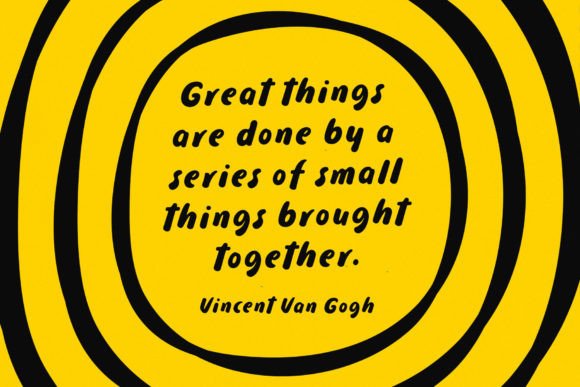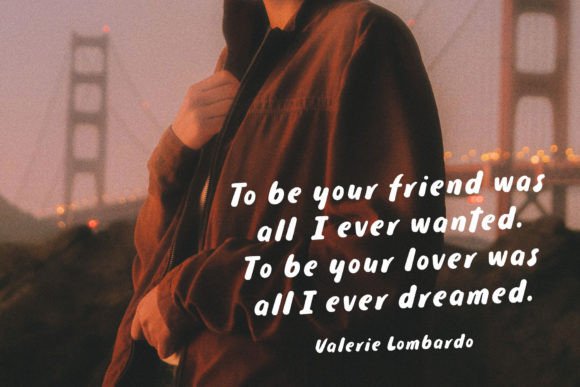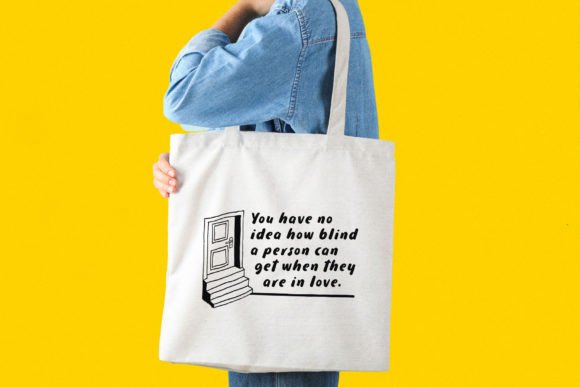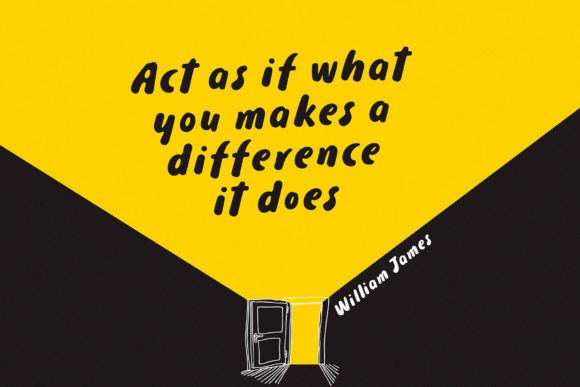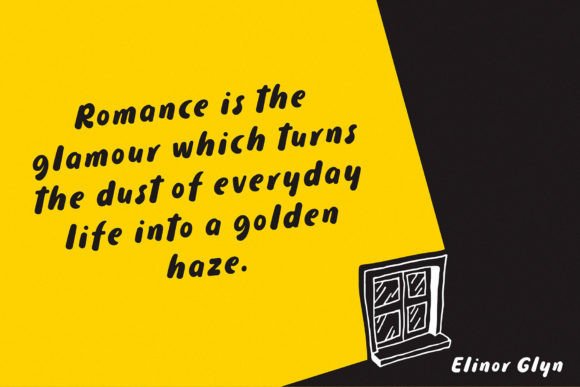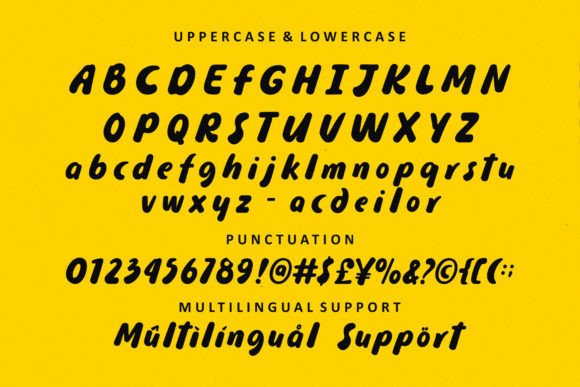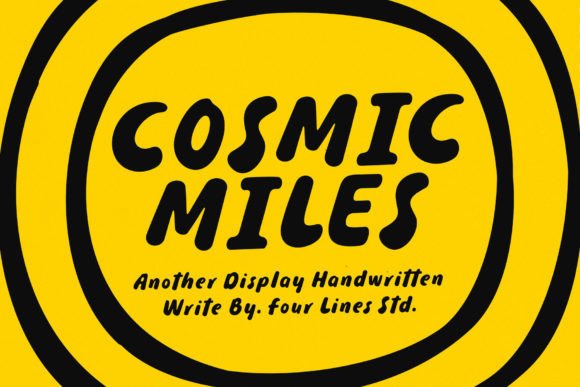
Cosmic Miles Font: Elevate Your Designs to New Celestial Heights
Are you a designer or crafter looking for a unique and captivating font to bring your favorite quotes to life? Look no further than Cosmic Miles, a stunning handwritten font that is out of this world. With its distinctive blend of thick and rounded strokes, Cosmic Miles encapsulates a sense of warmth and charm, adding a touch of cosmic magic to any project.
The Inspiration Behind Cosmic Miles
Cosmic Miles is more than just a font – it’s an experience. Inspired by the vastness of the universe and the beauty of handwritten script, this font is designed to transport your designs to new celestial heights. Whether you’re a seasoned designer or a crafty DIY enthusiast, Cosmic Miles is the perfect tool to add a touch of personality and whimsy to your work.
What Makes Cosmic Miles So Special?
So, what sets Cosmic Miles apart from other fonts? Here are just a few features that make it truly unique:
• Handwritten with love: Cosmic Miles is a handwritten font, carefully crafted to capture the imperfections and charm of human writing.
• Unique blend of thick and rounded strokes: The font’s distinctive strokes give it a warm and inviting feel, perfect for adding a touch of personality to your designs.
• Cosmic magic: With its celestial inspiration, Cosmic Miles is the perfect font for anyone looking to add a touch of magic to their designs.
Cosmic Miles is the perfect font for designers and crafters who want to add a touch of personality to their work. Whether you’re creating:
• Social media graphics: Add a touch of cosmic magic to your social media posts and stories.
• Planners and journals: Create beautiful and functional planners and journals that inspire and delight.
• Digital art: Use Cosmic Miles to add a touch of whimsy and personality to your digital art.
• Craft projects: Perfect for crafters who want to add a personal touch to their projects, from scrapbooking to card-making.
Here are a few tips for getting the most out of Cosmic Miles:
• Experiment with different colors: Try pairing Cosmic Miles with different colors to create a unique and eye-catching design.
• Play with font sizes: Experiment with different font sizes to create visual interest and hierarchy.
• Add a personal touch: Use Cosmic Miles to add a personal touch to your designs, whether it’s a quote, a message, or a simple phrase.
Cosmic Miles is a truly unique and captivating font that is sure to elevate your designs to new celestial heights. With its distinctive blend of thick and rounded strokes, this font encapsulates a sense of warmth and charm, adding a touch of cosmic magic to any project. Whether you’re a designer or crafter, Cosmic Miles is the perfect tool to bring your favorite quotes to life. So why wait? Download Cosmic Miles today and start creating your own cosmic masterpieces!